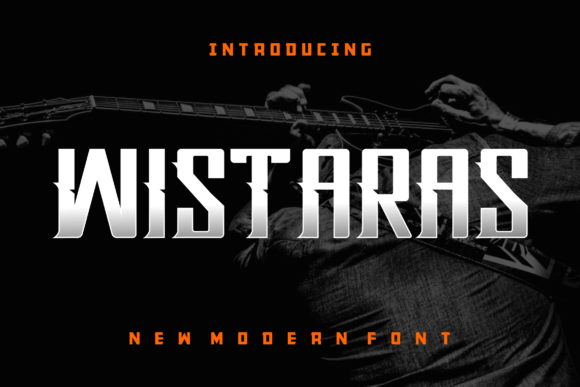
Embark on a typographic journey with Wistaras Font, a captivating display font that will ignite your creativity and elevate your designs to new heights. Crafted by the visionary font artist Yohanes Mulat Argo, Wistaras embodies the essence of modern aesthetics, seamlessly blending boldness and elegance.
Immerse yourself in the world of Wistaras, where your projects transcend the ordinary and take on a life of their own. This font is a gateway to boundless possibilities, empowering you to create designs that resonate with your audience and leave a lasting impression. Its striking presence commands attention, making it the perfect choice for headlines, logos, posters, and any project that demands a bold statement.
Whether you're a seasoned designer or just starting your creative adventure, Wistaras will unleash your inner artist and guide you towards typographic excellence. Its versatility extends across a wide range of applications, from branding and marketing materials to invitations, social media graphics, and even product packaging. With Wistaras, your designs will break free from the mundane and embrace a world of captivating visuals.
Fall in love with the intricate details and flowing curves of Wistaras. Each letterform is meticulously crafted to evoke a sense of sophistication and charm. The font's inherent balance and harmony create a visual symphony that draws the eye and captivates the imagination. Experience the joy of seamless text layout as Wistaras effortlessly enhances the readability and impact of your words.